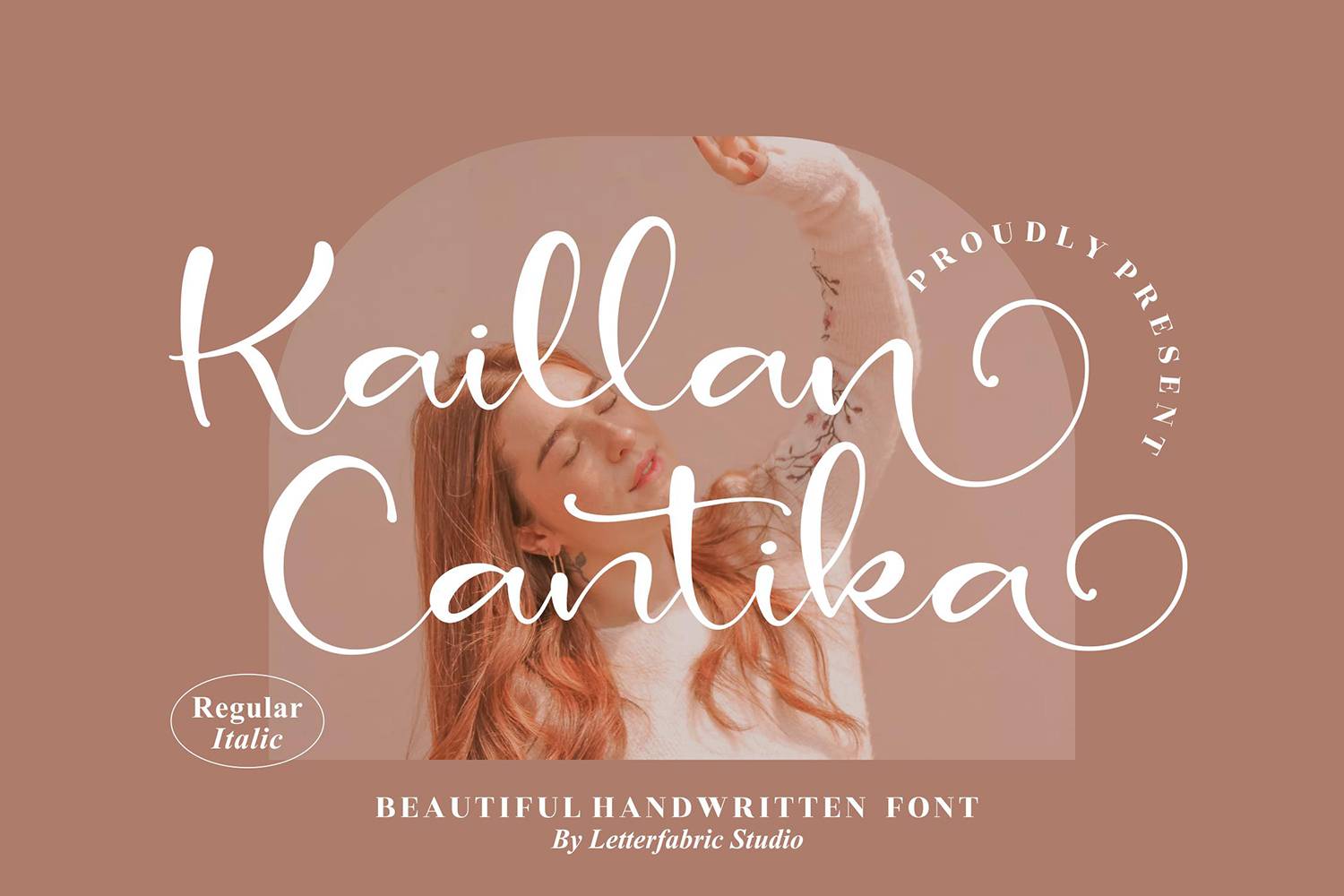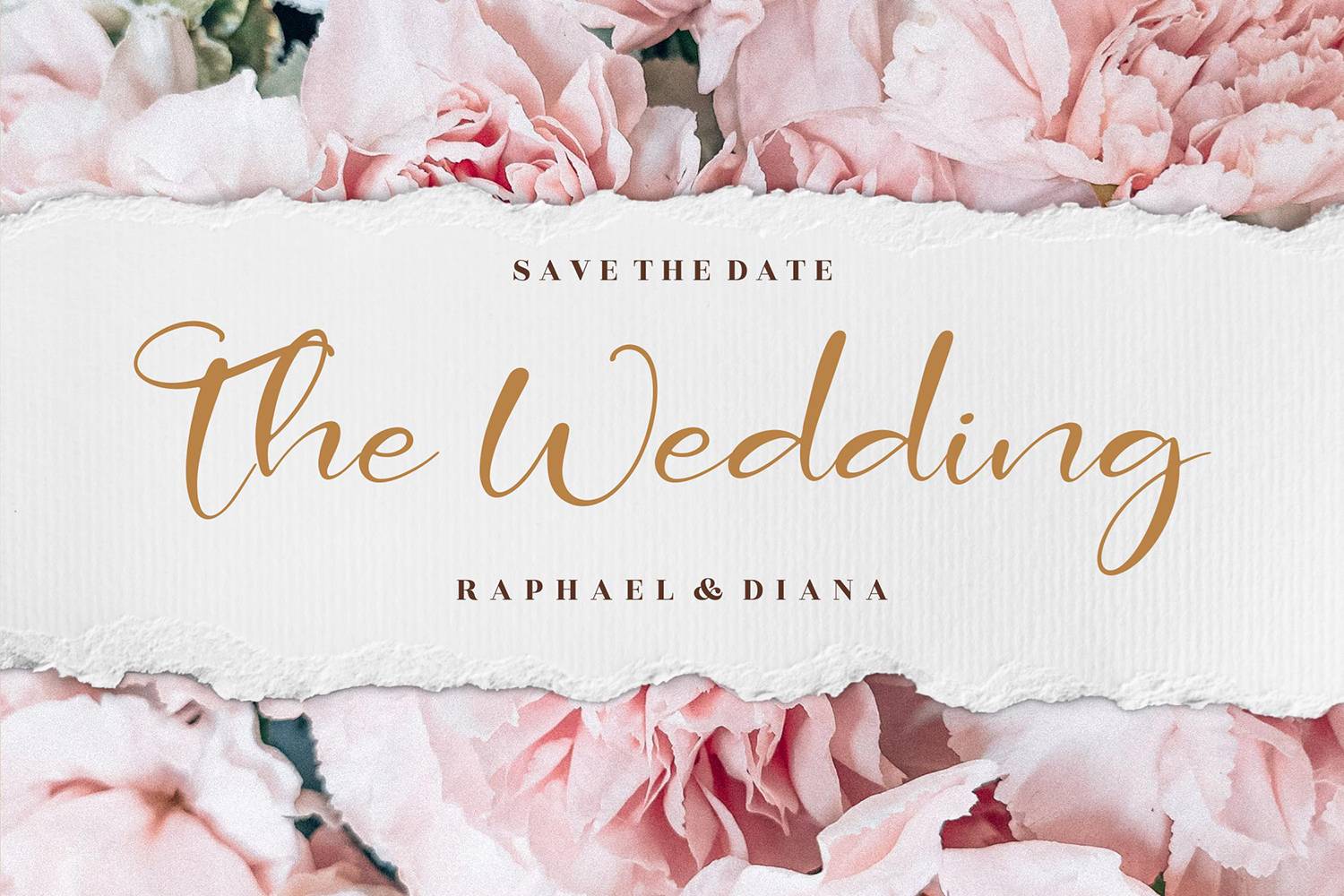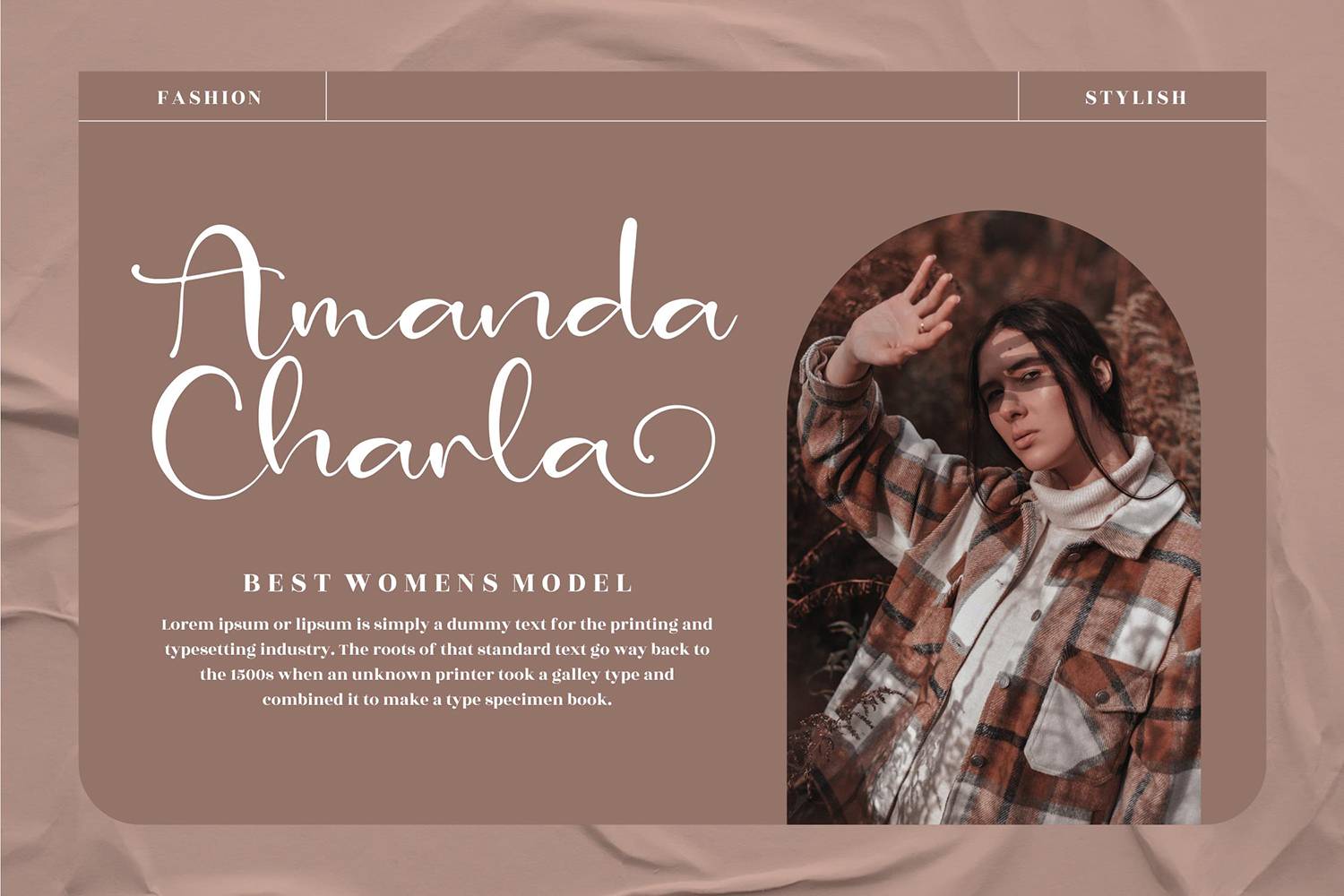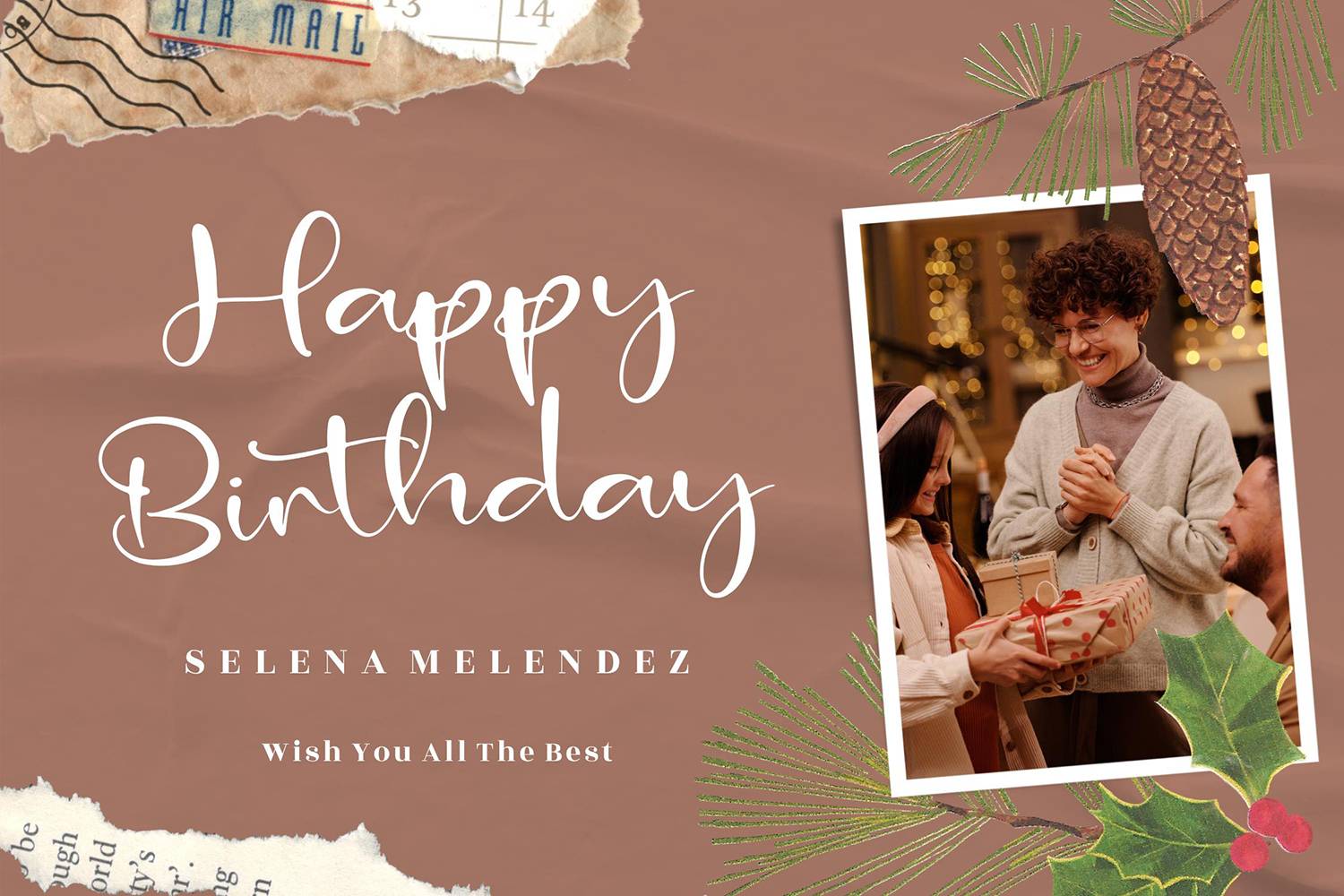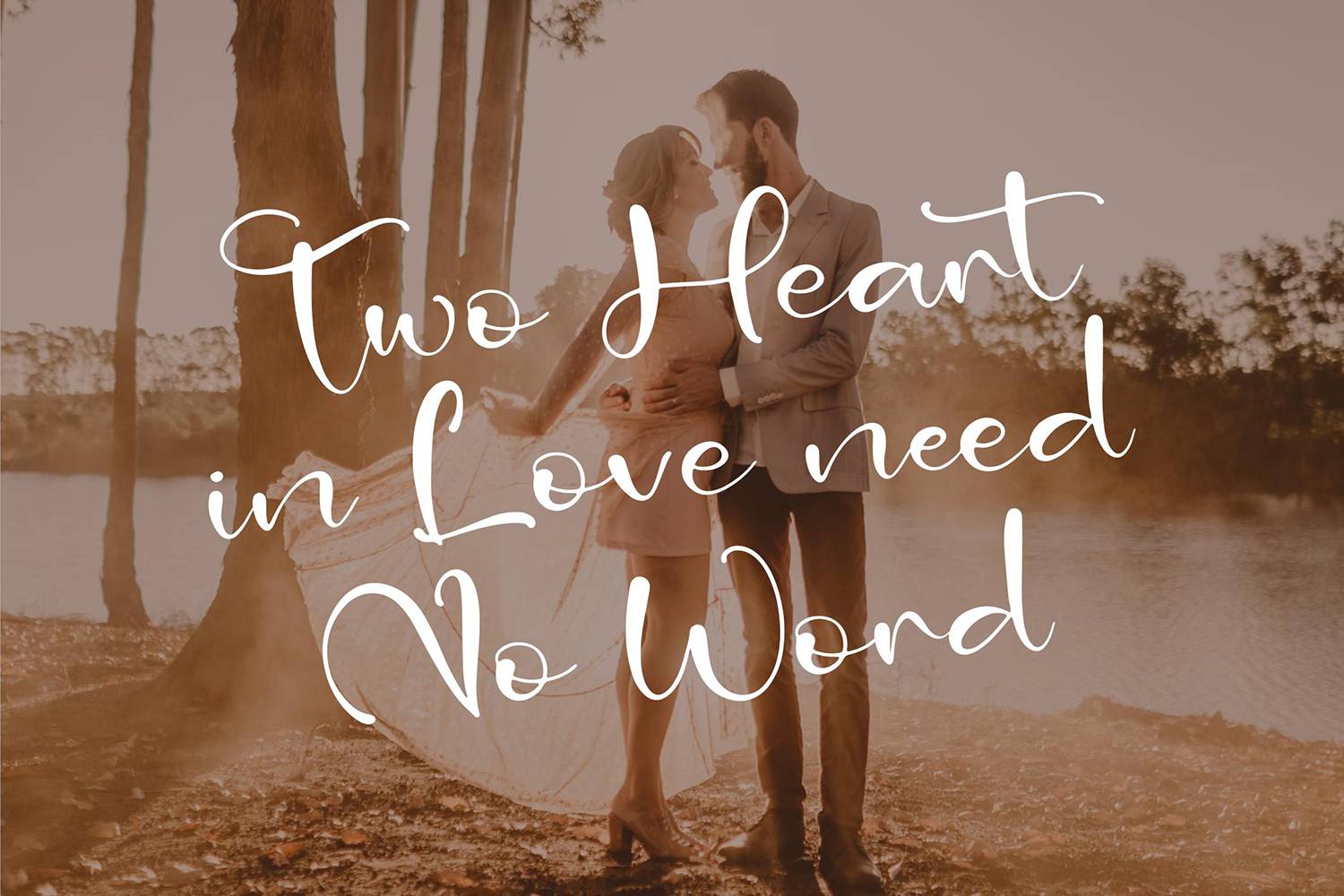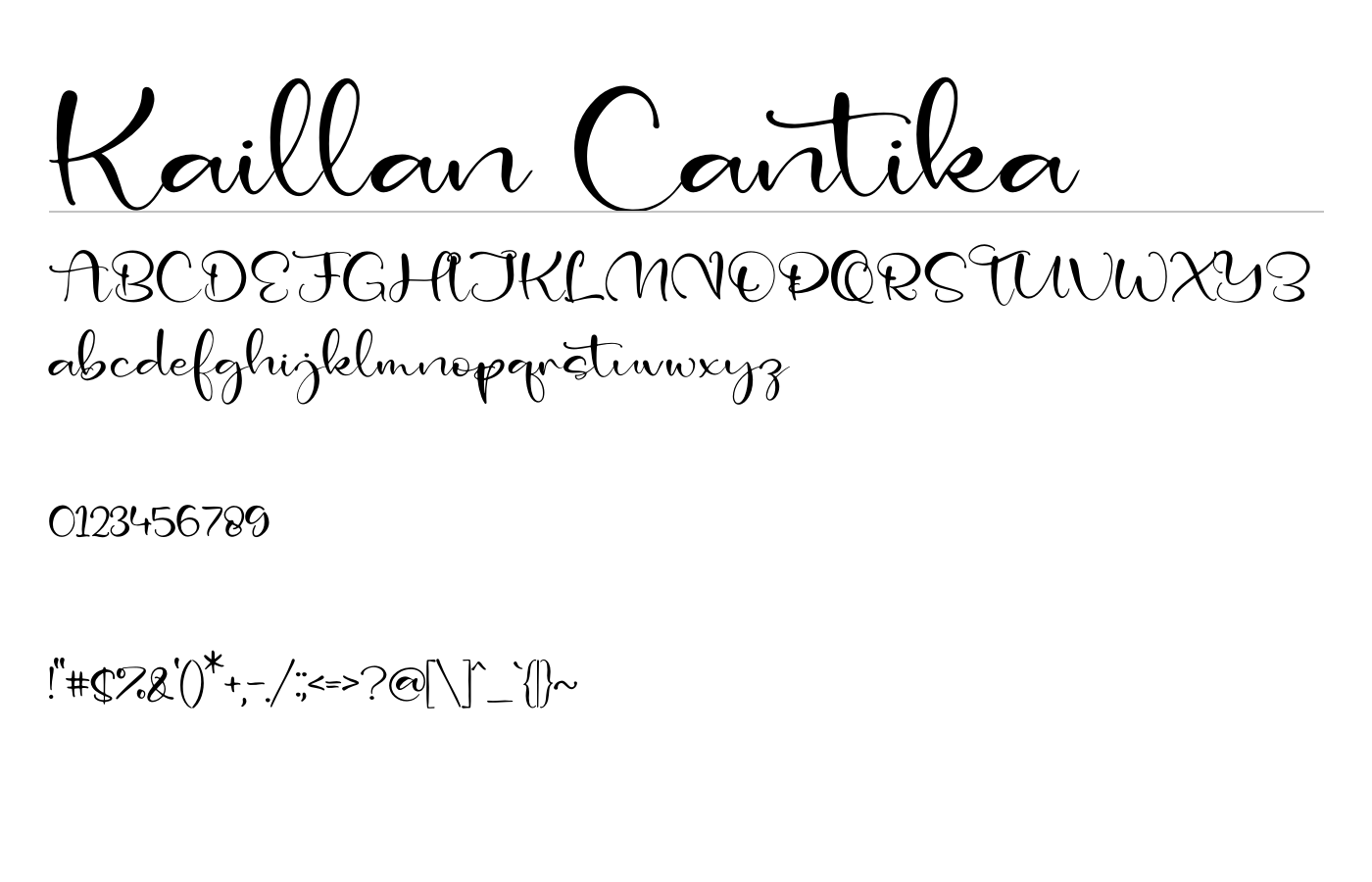
Kaillan Cantika is a graceful script font with elegant, flowing strokes that combine a handwritten feel with refined sophistication. Its light to regular weight and delicate curves create a romantic and stylish personality, making it ideal for invitations, branding, and feminine or luxury designs that seek a personal, artistic touch. With its balanced legibility and decorative flair, it works beautifully in headlines and logos where a touch of charm and elegance is desired.
Kaillan Cantika Font
About Kaillan Cantika Font